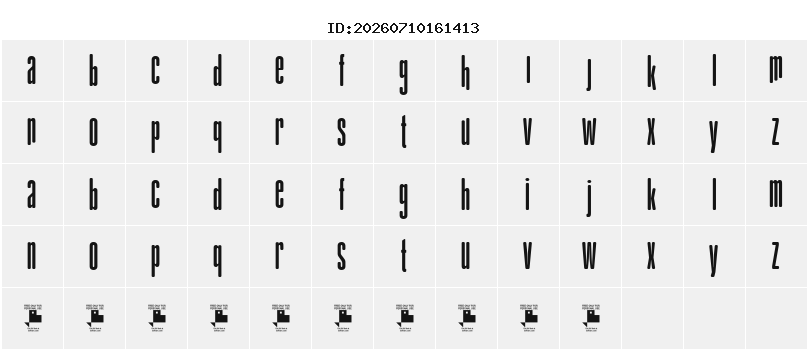
• Font Name: gAbAcHiTA FFP
• Designer: deFharo
• Description: Tipografía Sans Hiper comprimida en minúsculas con acabado redondeado. Descarga gratis la versión completa de la fuente en: http://defharo.com/diseño-grafico/tipografia/gabachita-font/ Get a free full font at defharo.com
gAbAcHiTA FFP.ttf is a modern, elegant sans-serif font designed for ultimate readability and visual harmony. Perfect for branding, headlines, web design, and print materials.